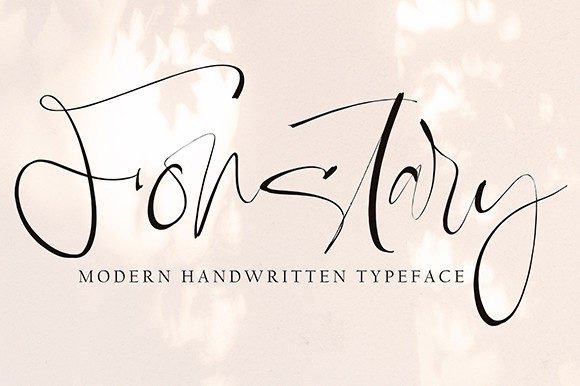
In a world where words dance and emotions ignite, there lies a font, a captivating symphony of curves and strokes, ready to transform your designs into masterpieces. Meet Fonstary, the enchanting handwritten font that captures the grace and elegance of a bygone era.
Journey into a realm of creativity where Fonstary's delicate lines intertwine, creating a visual tapestry that speaks to the heart. Each letter, meticulously crafted, carries a weight of history and a whisper of romance. Allow Fonstary to guide you on a voyage of self-expression, where your words take flight, leaving a trail of beauty and inspiration.
Envision your wedding invitations, adorned with Fonstary's delicate touch. The flowing curves of each letter will echo the joy and promise of your special day, while the elegant serifs add a touch of timeless sophistication. Your guests will be captivated by the charm and grace of your invitations, a testament to the love and care you've poured into every detail.
Picture your social media posts, infused with the allure of Fonstary's enchanting script. Each word, a visual delight, will draw your audience in, weaving a spell of engagement and intrigue. Your followers will be captivated by the unique personality Fonstary brings to your content, setting your posts apart from the ordinary and leaving a lasting impression.
Imagine your marketing materials, imbued with the power of Fonstary's expressive strokes. Logos, brochures, and flyers will come alive with a touch of elegance and sophistication, capturing the attention of your customers and leaving them eager to learn more about your brand. Fonstary's timeless beauty transcends trends, ensuring your materials remain relevant and alluring for years to come.
With Fonstary, the possibilities are endless. Its versatility extends from the delicate charm of wedding invitations to the bold appeal of marketing campaigns. Whether you're a designer seeking to elevate your projects or a business owner looking to make a lasting impression, Fonstary is your perfect companion.
Discover the magic of Fonstary today and unlock the full potential of your creative expression. Let your words dance with grace and your designs bloom with elegance. Embrace the allure of this enchanting font and embark on a journey of visual storytelling that will leave your audience breathless.